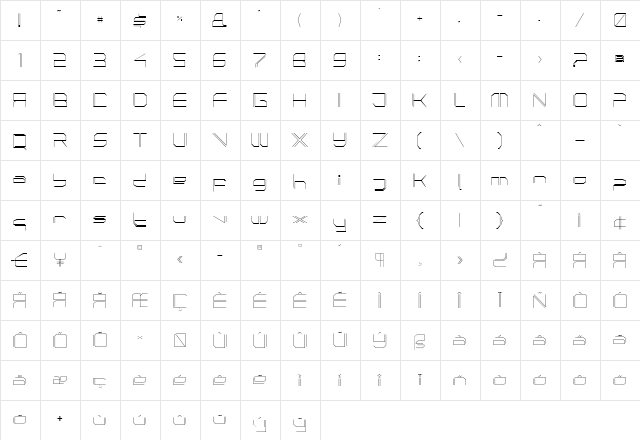
PhutureSqrdOpen Regular
Design Context for PhutureSqrdOpen Typeface
PhutureSqrdOpen takes a measured approach to typography — its balanced proportions and neutral character make it a reliable workhorse for both digital and print work.